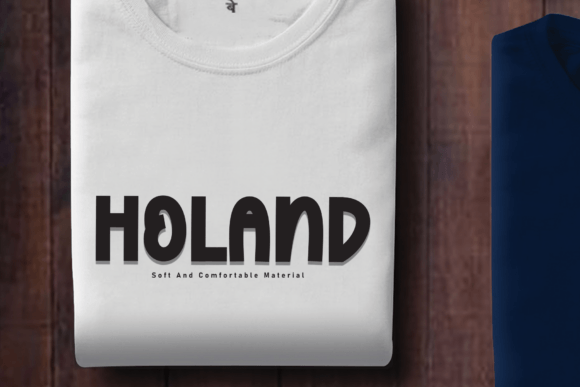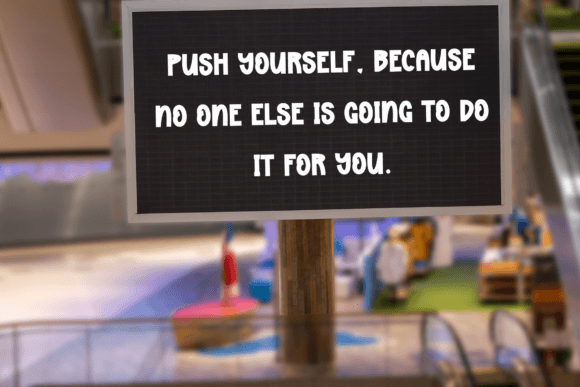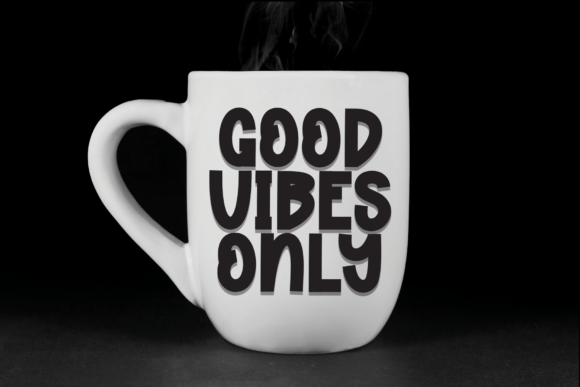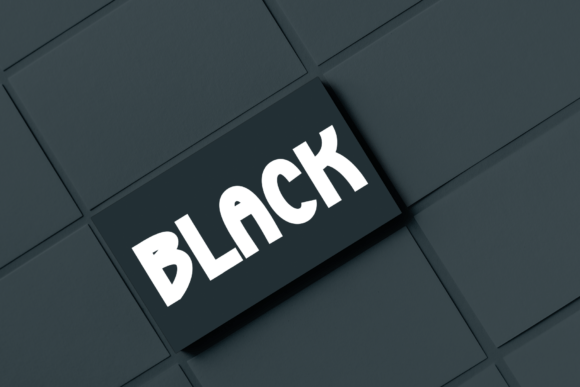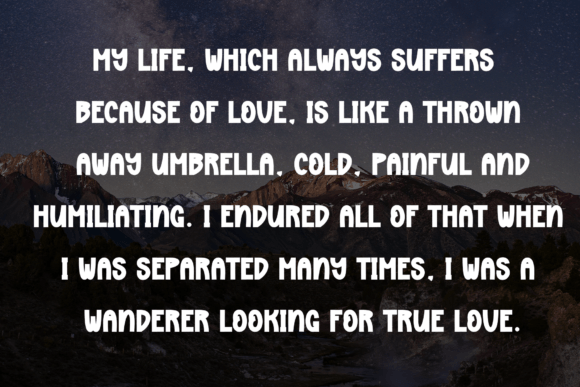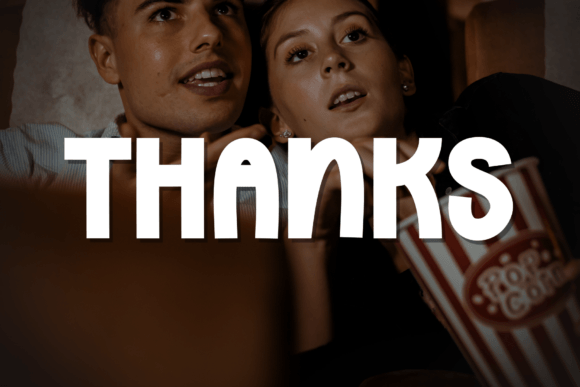
Introduction to Movie Night Font
You know that feeling when you’re scrolling through your favorite design inspiration boards, and you stumble upon a beautiful, handwritten font that makes your heart skip a beat? For designers, finding the perfect font can be a game-changer, elevating our creative projects to the next level. And that’s exactly what we’re excited to share with you today – the Movie Night Font.
This sweet and friendly handwritten font is a design resource that’s sure to inspire your next creative project. With its natural and unique style, the Movie Night Font is incredibly versatile, making it perfect for a wide range of designs, from digital art to print materials. And the best part? It’s available for a free download, so you can get started on your next project right away.
Whether you’re working on a high-quality brochure, a social media graphic, or a website design, the Movie Night Font is a valuable addition to your design toolkit. Its transparent background makes it easy to layer over other design elements, giving you endless possibilities for creativity. So why wait? Download the Movie Night Font today and unlock your full design potential!
Key Features of Movie Night Font
- High-quality design for creative projects: Movie Night Font is a unique and stylish font perfect for movie-themed projects, events, and designs.
- Unique characteristics: Movie Night Font features a bold and playful design, with intricate details and a nostalgic feel, making it perfect for adding a touch of elegance to any creative project.
Honest Review: Movie Night Font
I recently stumbled upon the Movie Night Font and was excited to give it a try. As a designer, I’m always on the lookout for new and interesting fonts to enhance my creative projects.
Here are some of the things that worked well for me:
- ✨ The high quality of the font is evident in its crisp lines and smooth curves.
- ✨ The transparent background allows for easy use in a variety of design settings.
- ⚠️ The font may not be suitable for all design projects, particularly those that require a more formal or professional look.
- ⚠️ The font’s playful and casual vibe may not appeal to all designers or audiences.
Overall, I think the Movie Night Font is a great addition to any designer’s toolkit. While it may have some limitations, its high quality and versatility make it a valuable resource for creative projects. I’d definitely recommend giving it a try if you’re looking for a fun and eye-catching font.
Movie Night Font
Experiment with different font sizes and colors to create a unique design. Combine the Movie Night Font with other design elements, such as images or graphics, to add depth and interest to your project.
The Movie Night Font is perfect for creating designs related to movies, TV shows, or entertainment. Use it to create social media posts, promotional materials, or event invitations. You can also use it for personal projects, such as creating a movie-themed party invitation or a customized movie poster.